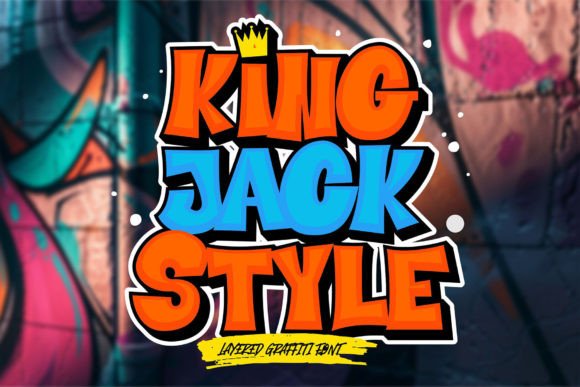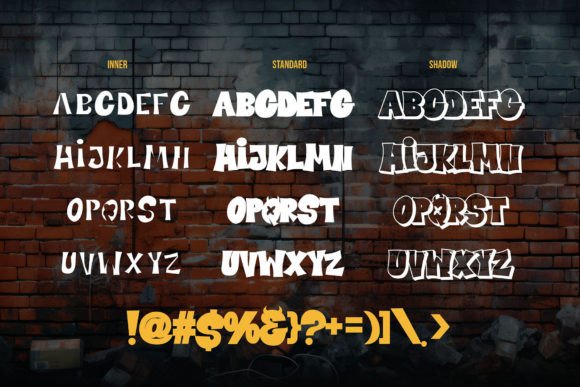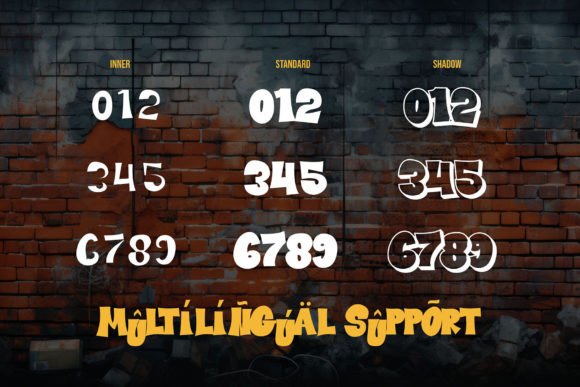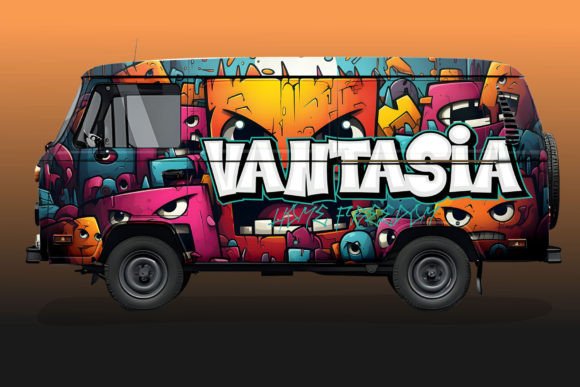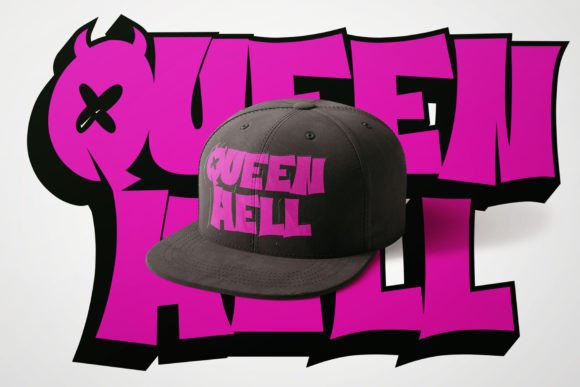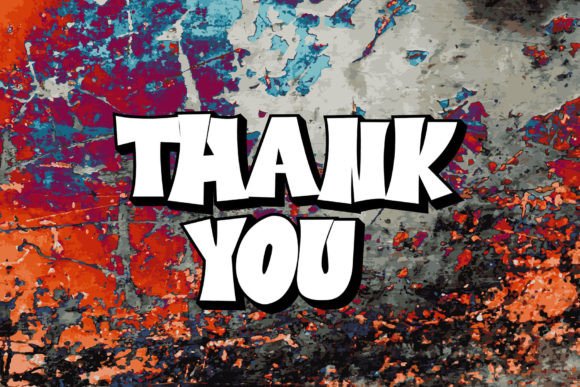
King Jack Style Font
Vault into the vivid world of graffiti-inspired typography with the “King Jack Style”. It’s a dynamic, 3D layered font that infuses your designs with an assertive and attention-grabbing aesthetic. Every letter carries three distinctive layers: standard, internal, and shadow – put together to introduce a striking depth, giving your text a lifelike profile that virtually leaps off the screen.
“King Jack Style” is an ideal fit for street-style themes, mural-inspired designs, bold posters, dazzling album covers, or any creative endeavor requiring a potent and lively typographic influence. Assert your message with verve and panache, courtesy of this distinctive font. Delve into the limitless potential of “King Jack Style”, as it lends an undeniable urban edge and cultivated artistic elegance to your work.